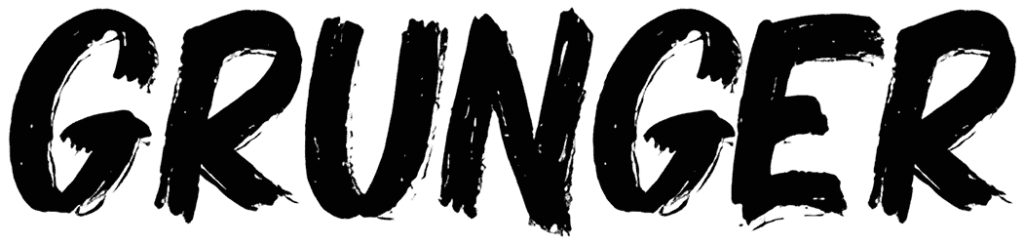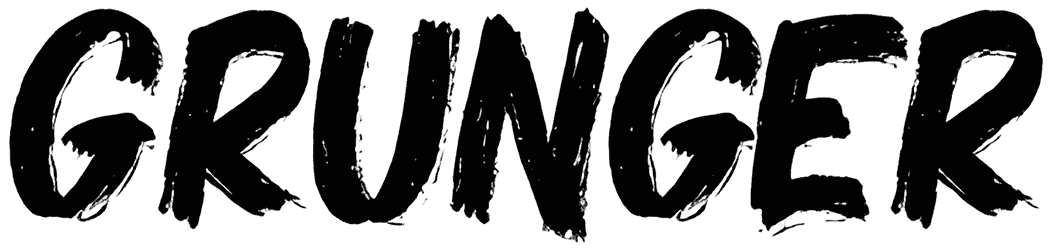
Grunger Font
As an awesome pickup, this brush font, with its street art and cool shape, is able to add a modern and captivating vibe to your creative project. The Grunger font doesn’t support lowercase letters, but it has a swash set that can help you amp up your layouts like a hip-hop music album design. Set this unique script font on your novel idea and see the amazing final showcase.